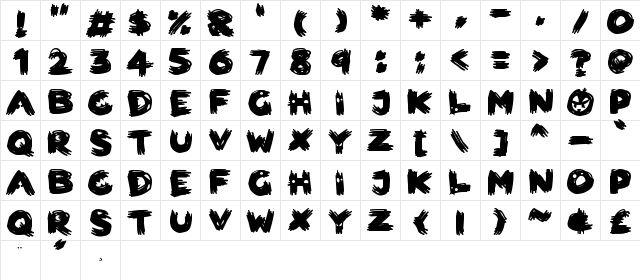
Scary HorrOrs Regular
Design Context for Scary HorrOrs Typeface
Scary HorrOrs leans into the macabre with letterforms designed to disturb and intrigue in equal measure.
Ideal for Halloween projects, horror film titles, haunted house signage, and dark editorial design.
Font Pairing: Pair with a clean neutral sans-serif for body copy to let Scary HorrOrs's character lead without overwhelming the composition.
Pro Tip: Scary HorrOrs works best as a headline or focal element. Pair it against plain, neutral body text to amplify the contrast.